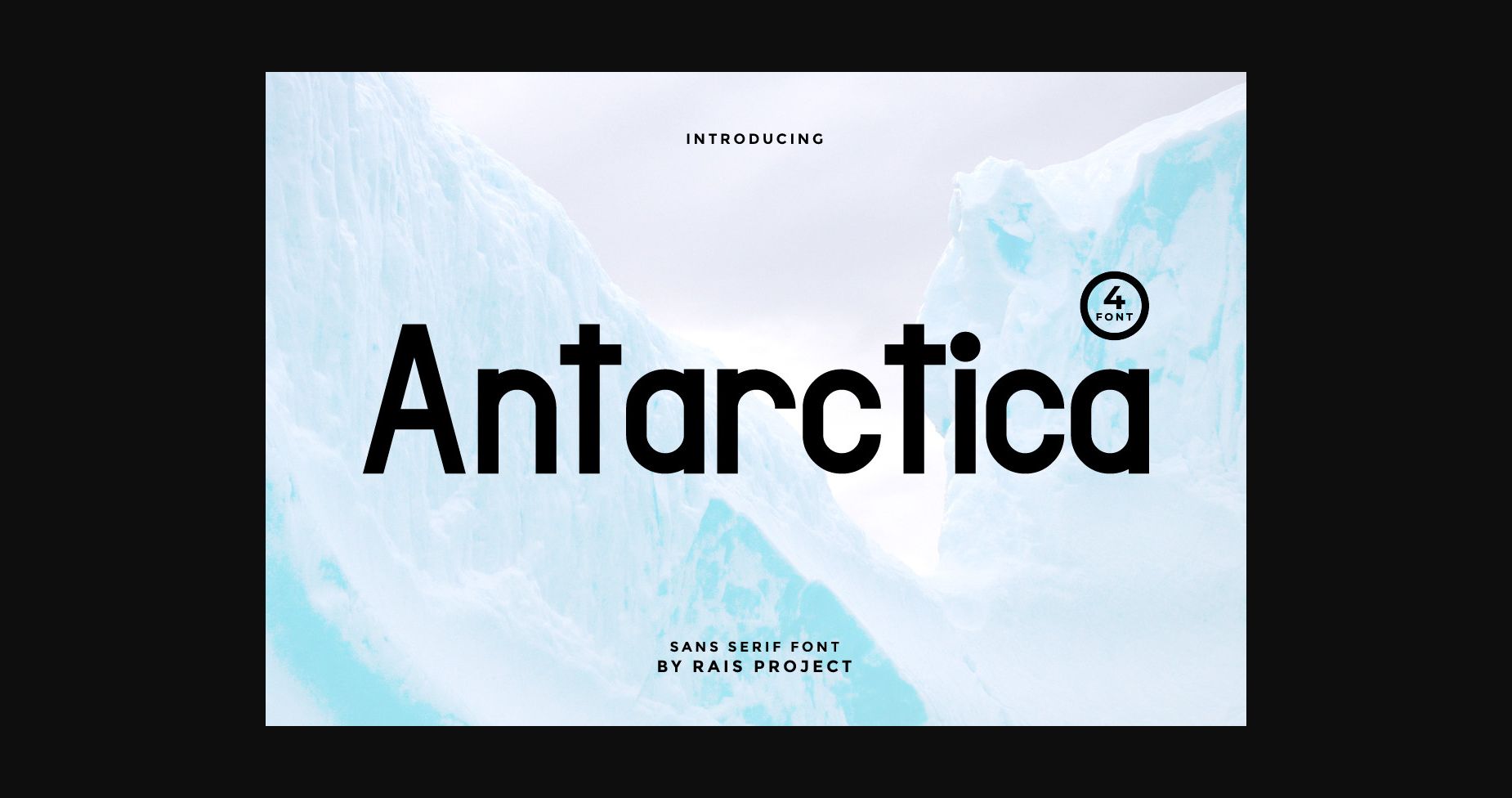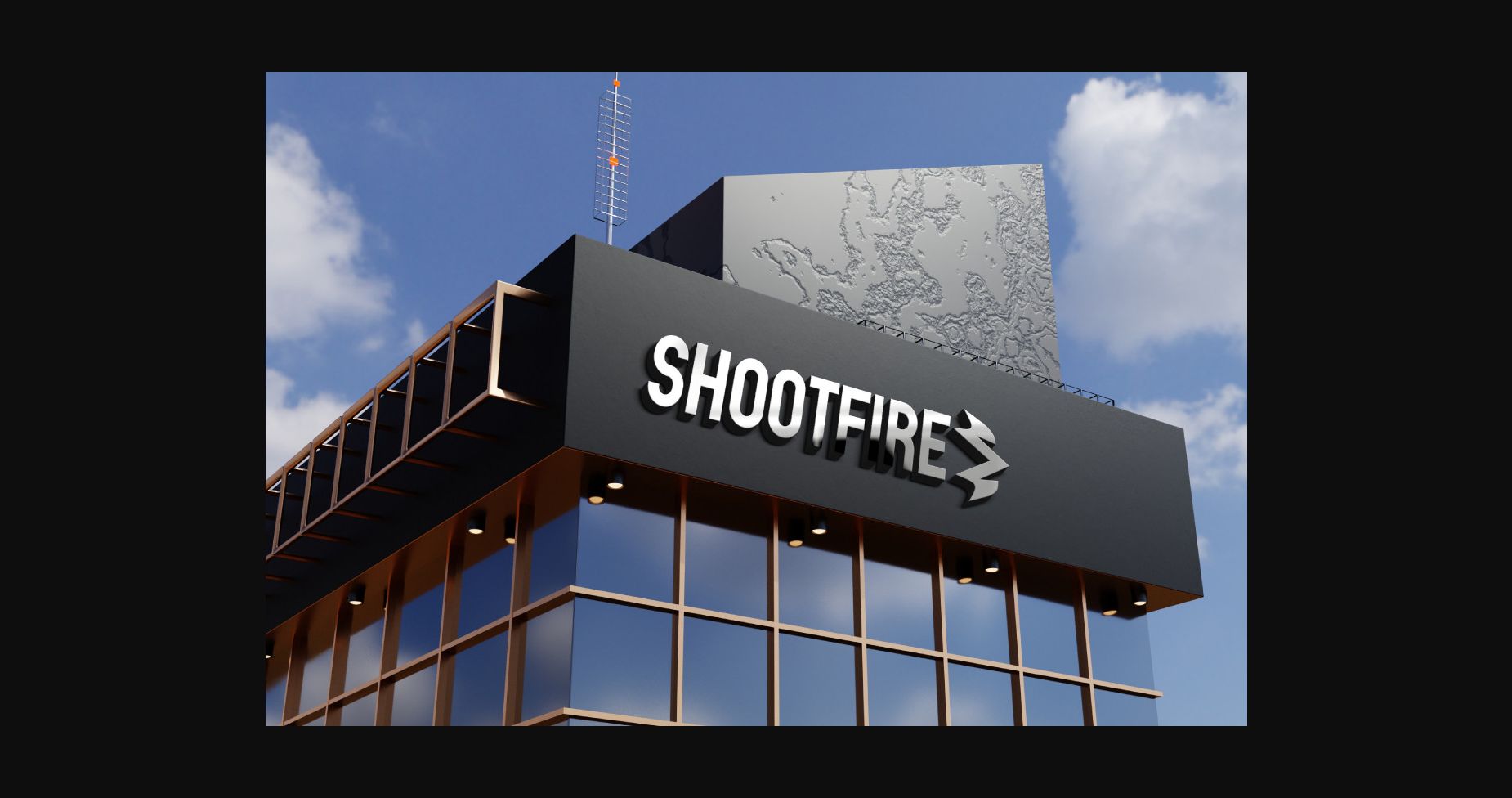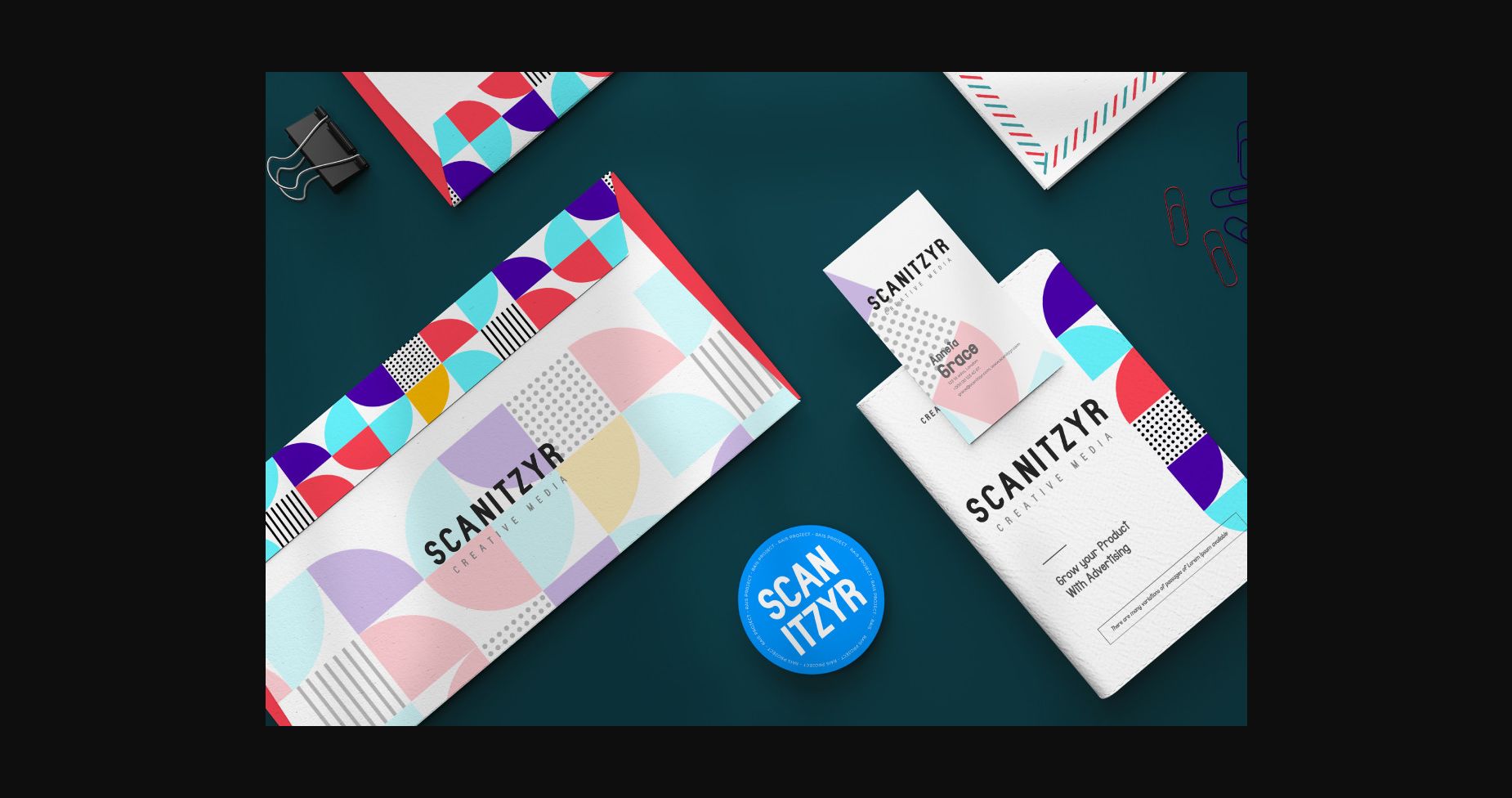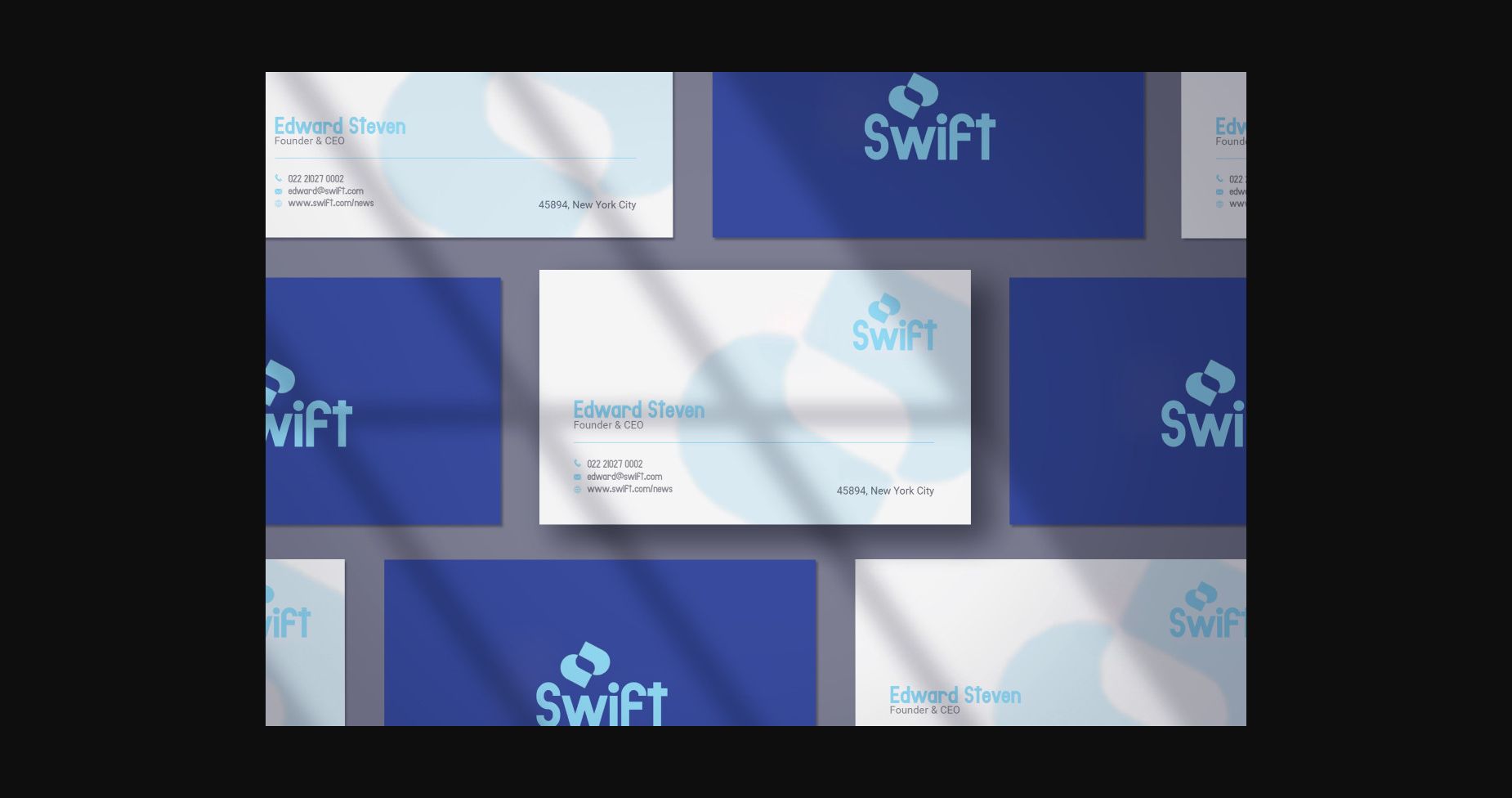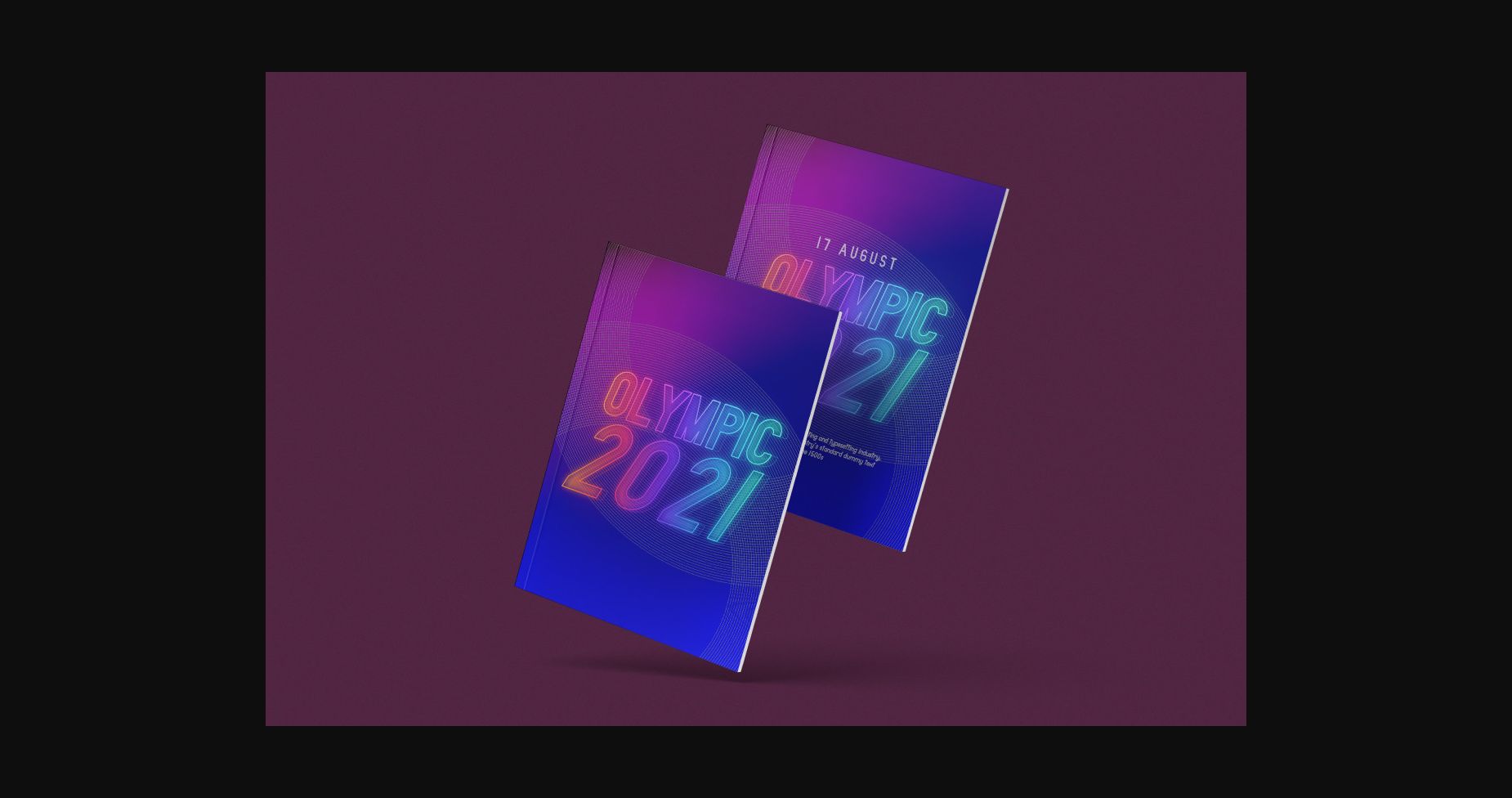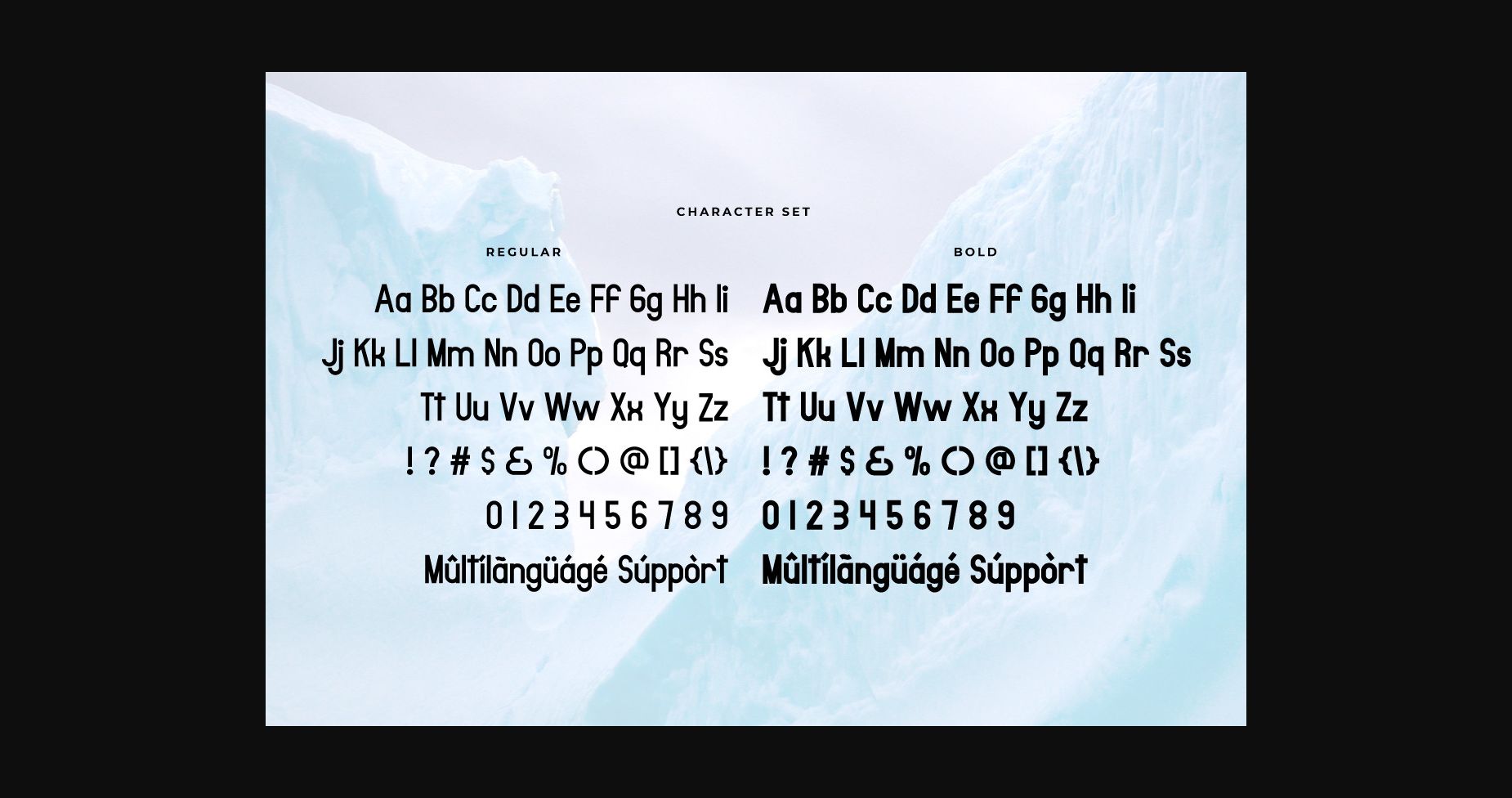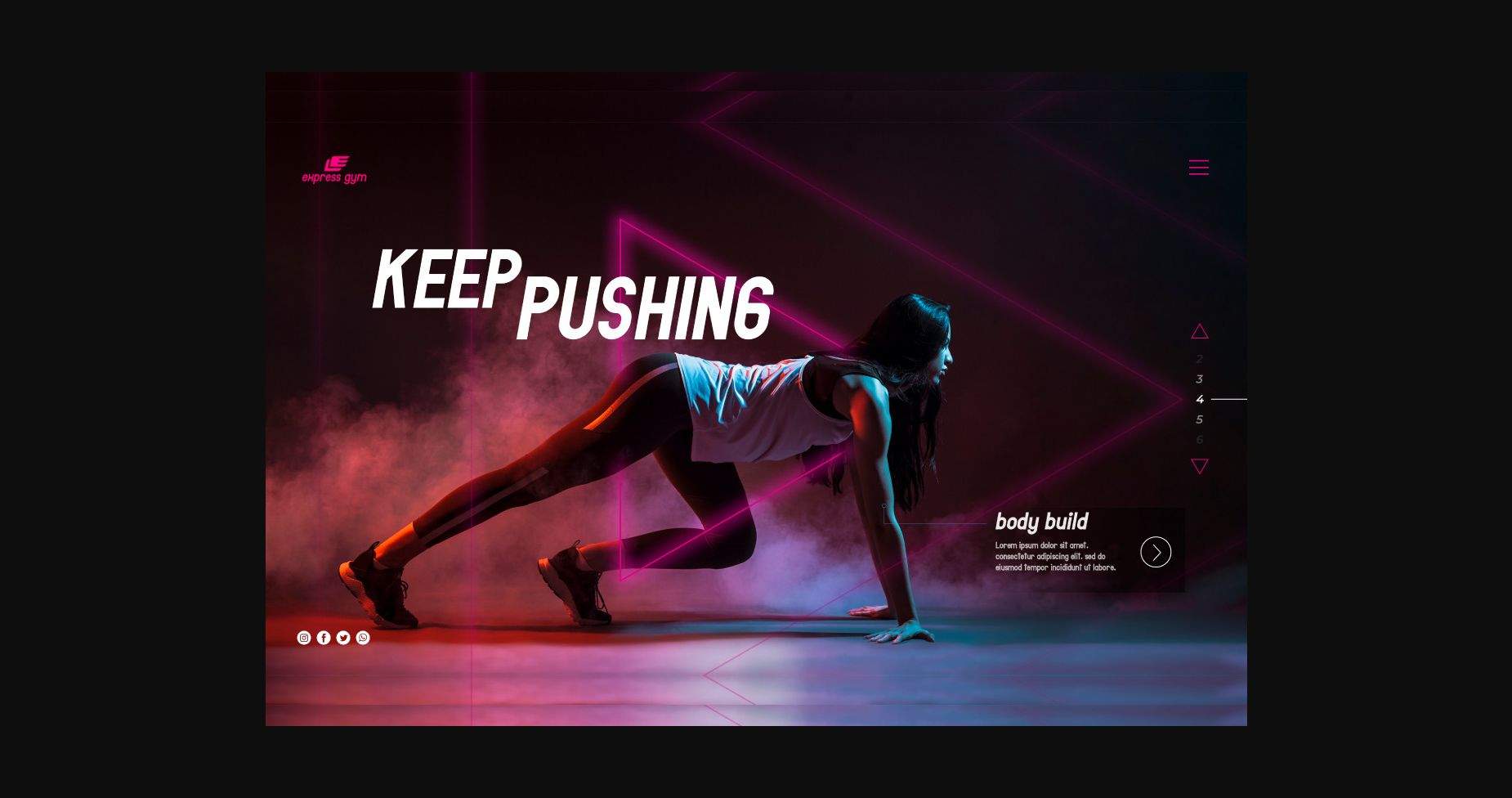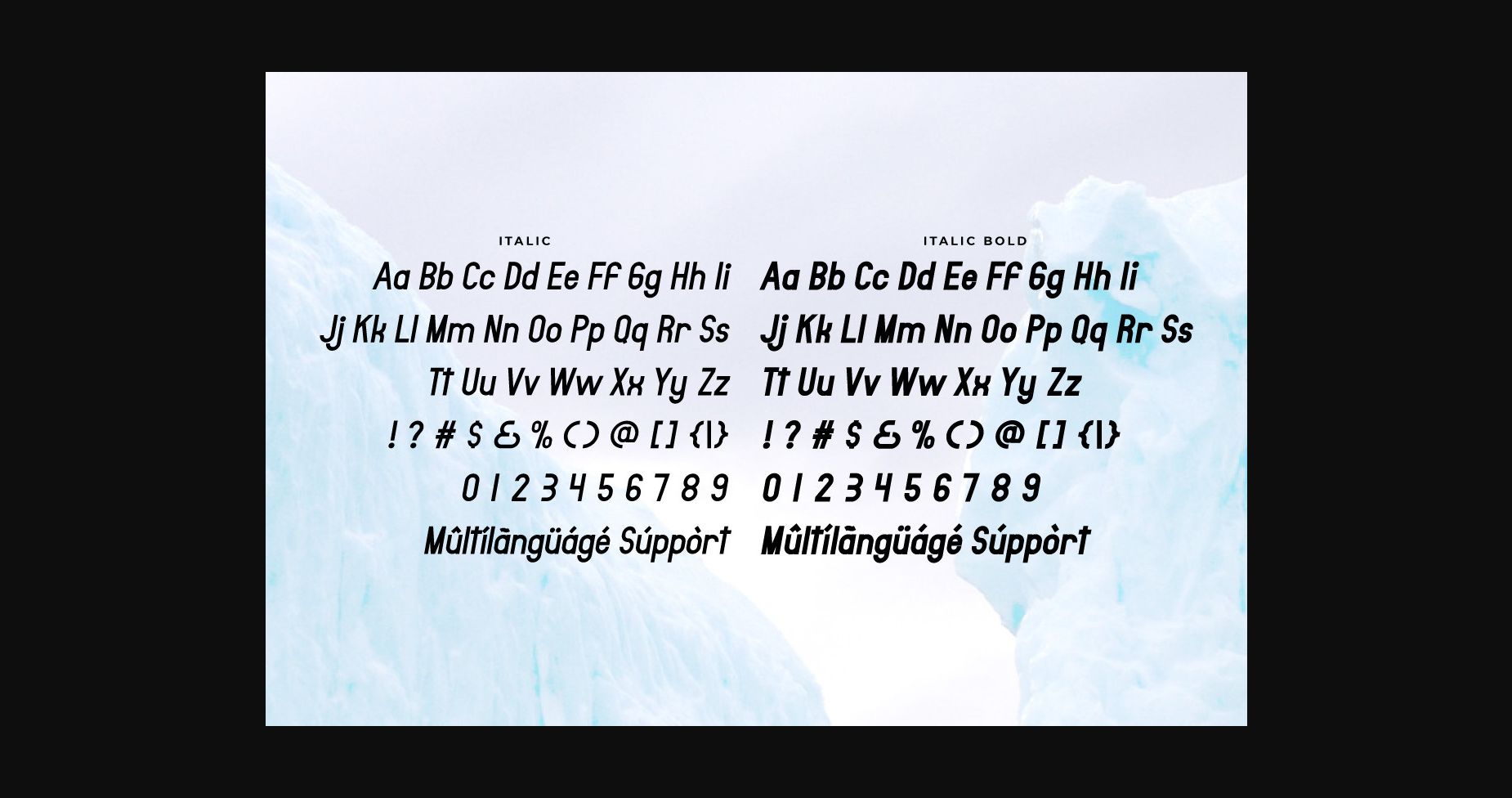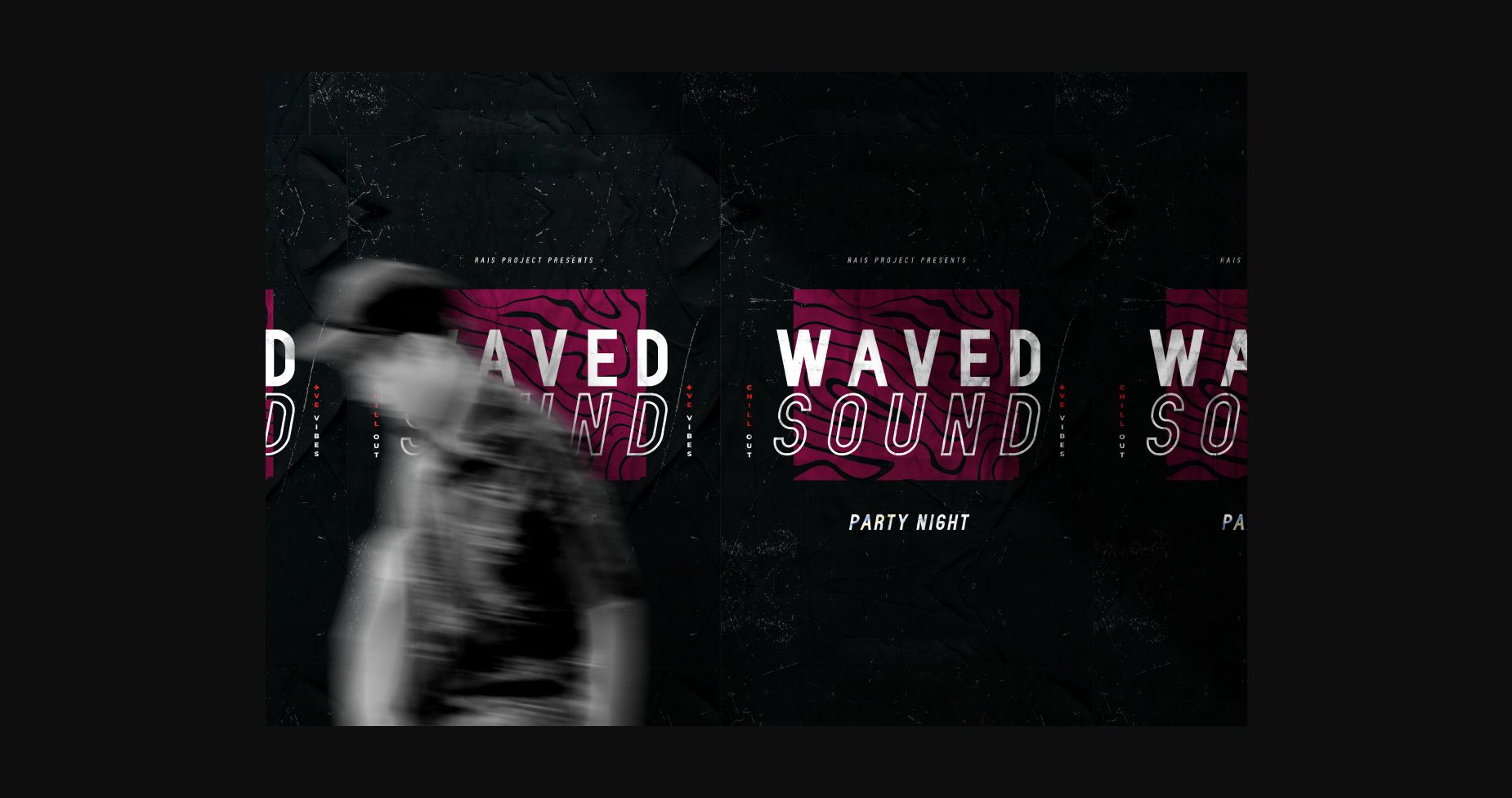
About Antarctica Font
Antarctica is a modern sans serif font featuring a unique style that is great for sport, technology, games, magazines, music, brand company, etc.
Antarctica is great for any of your projects including branding, advertising, magazine, signage, invitation, stationery, social media posts, label, or any project that needs a unique minimal style. The industries for this font include Fintech, Startup, Automotive, Apps, Cosmetic, Beauty, Technology, Game, Magazine, Music, Sport, etc.